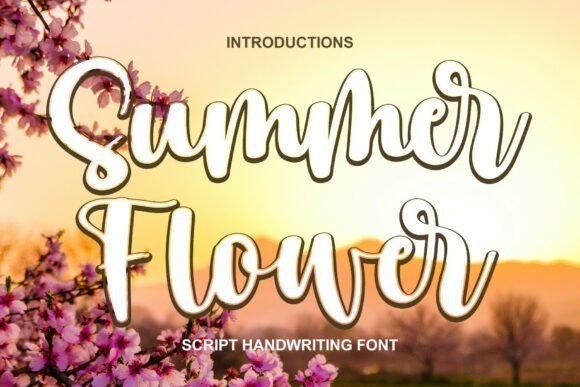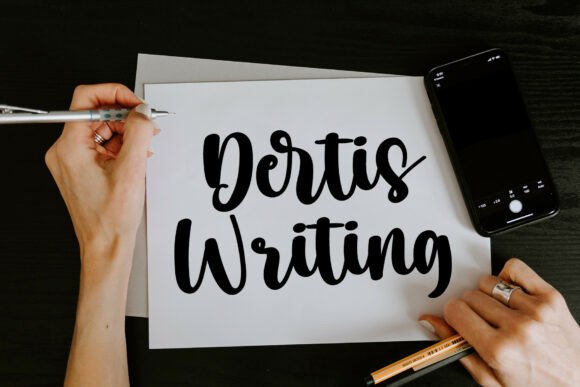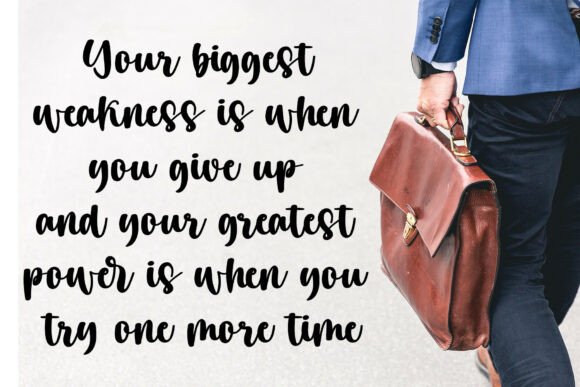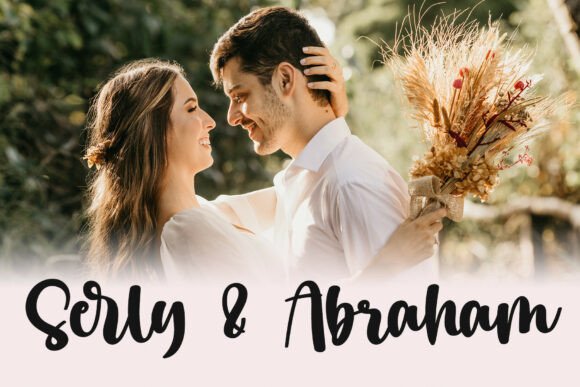
Summer Flower Font
About the Summer Flower Font
Let us introduce you to Summer Flower Font, where timeless design meets modern craftsmanship. Summer Flower is a stylish and dainty script font. It is suitable for any projects such as : logos, branding projects, label, photography, watermark, special events, and all your other lovely projects that need a beautiful script taste. This font is PUA encoded which means you can access all of the glyphs and swashes with ease.
Summer Flower Font Usage Examples
Summer Flower Font Example